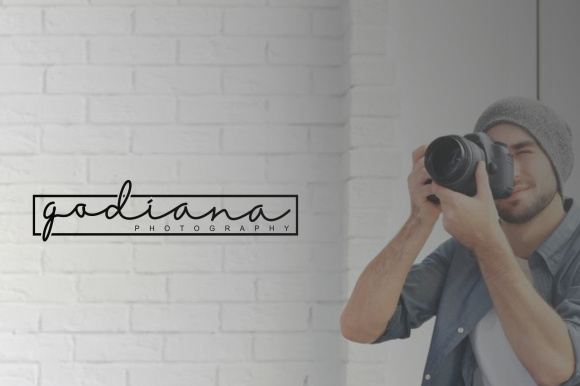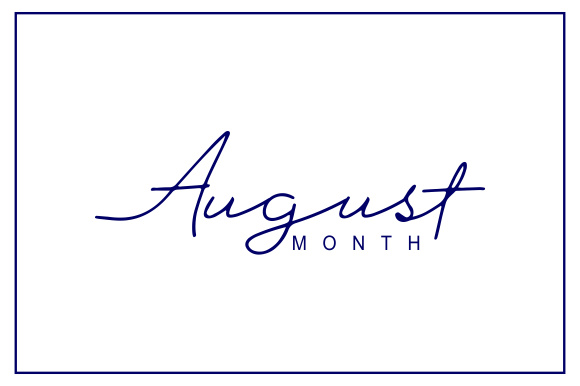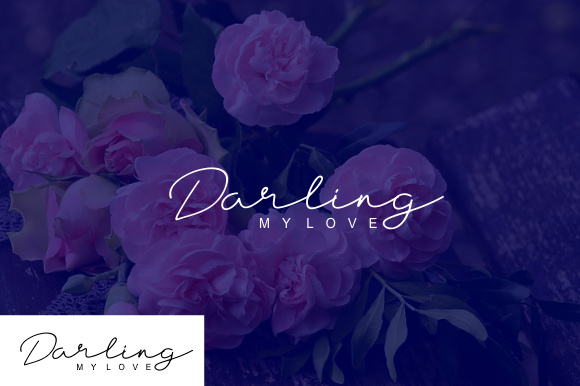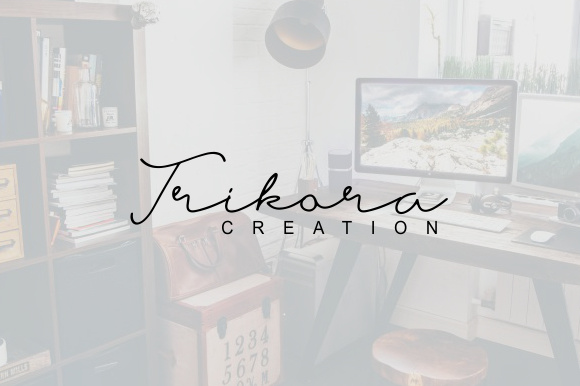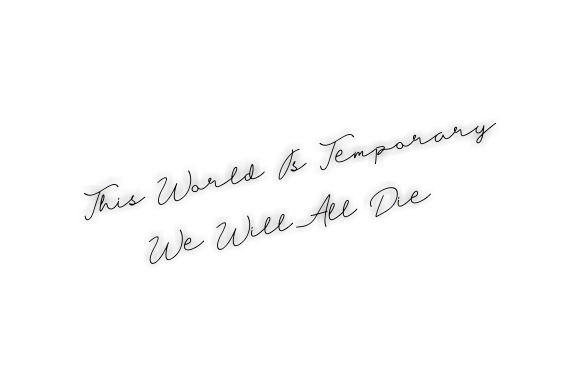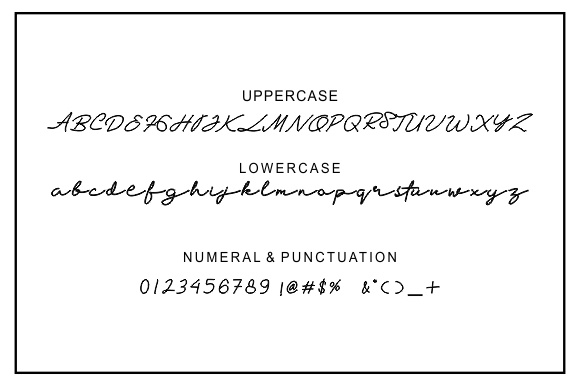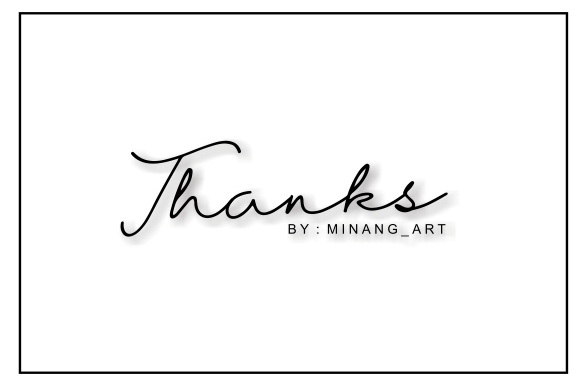
Godiana Font
About Godiana Font
Godiana is a modern handwritten script. It has decorative characters and a dancing baseline. Godiana is perfect for blog headers, branding, t-shirts, weddings, social media, product designs, and more!